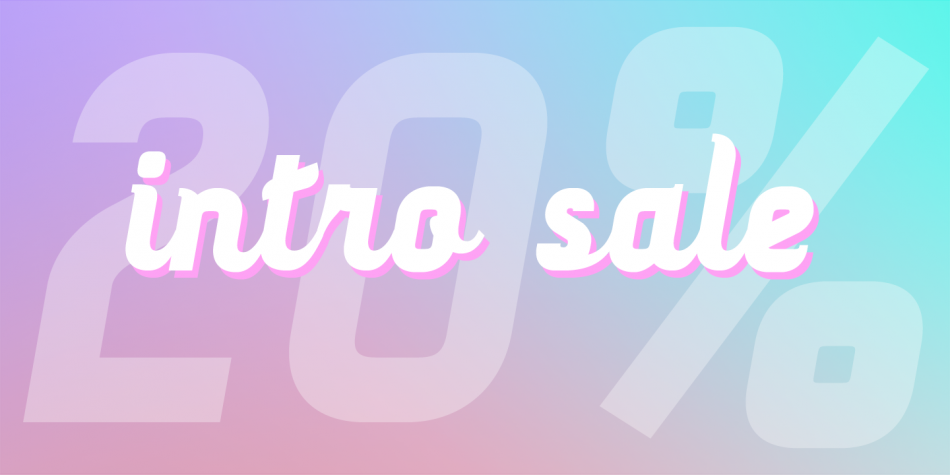
Designed by Alex Etewut, Ma Tilda is a script and pixel font family. This typeface has six styles and was published by Etewut.
Ma Tilda is connected script based on my previous typeface Tilda. It has alternates for each basic Latin symbol so you can chose between connected and non-connected glyphs.
The typeface supports all European languages and has special characters like the French Œ, Æ, Î, È; the German Ü, Ö, Ä, ß; the Spanish Ñ, Ç, Ó; the Scandinavian Ø, Å, Ð; and many others.
Ma Tilda is a new “Lobster” it perfectly fits for signing cards, writing titles or typing a message in a funny way! More of all it has magic karma for increasing your sales, be it candies or perfume.